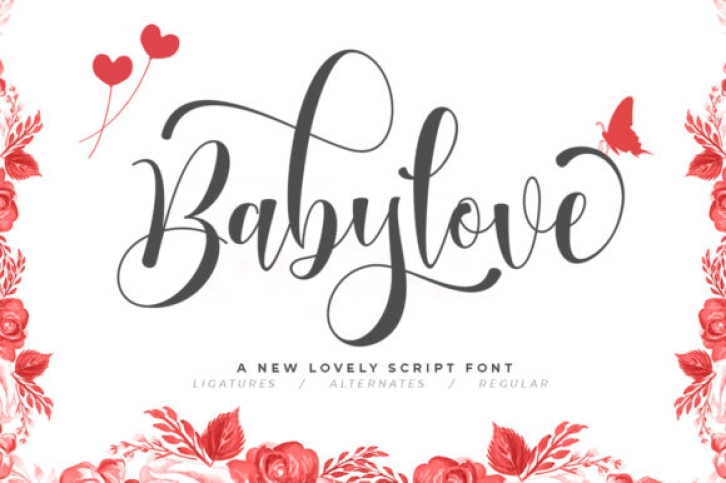
Babylove is cute and whimsical, but also casual. This versatile display font has a wide range of applications ranging from greeting cards to stunning calligraphy art and is guaranteed to add a personal touch to your next design.
This font is PUA encoded which means you can access all of the playful glyphs and swashes with ease! It also features a wealth of special features including alternate glyphs and ligatures.